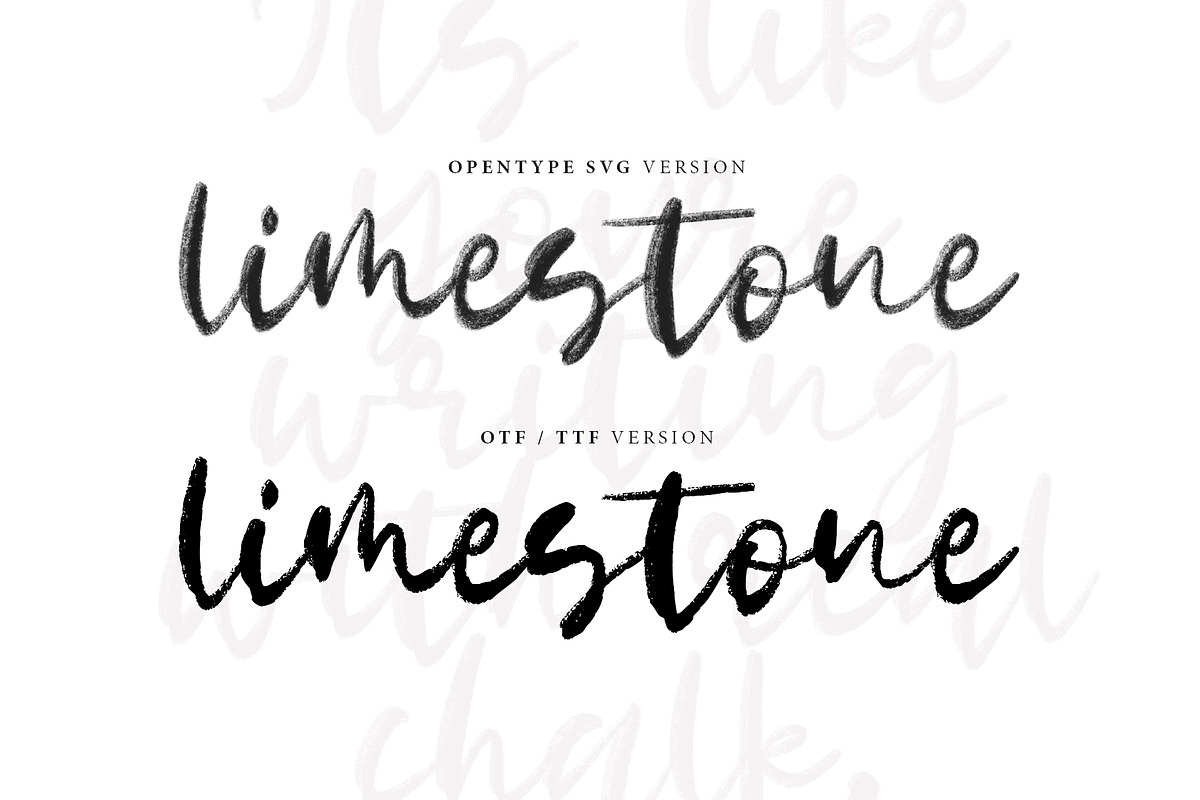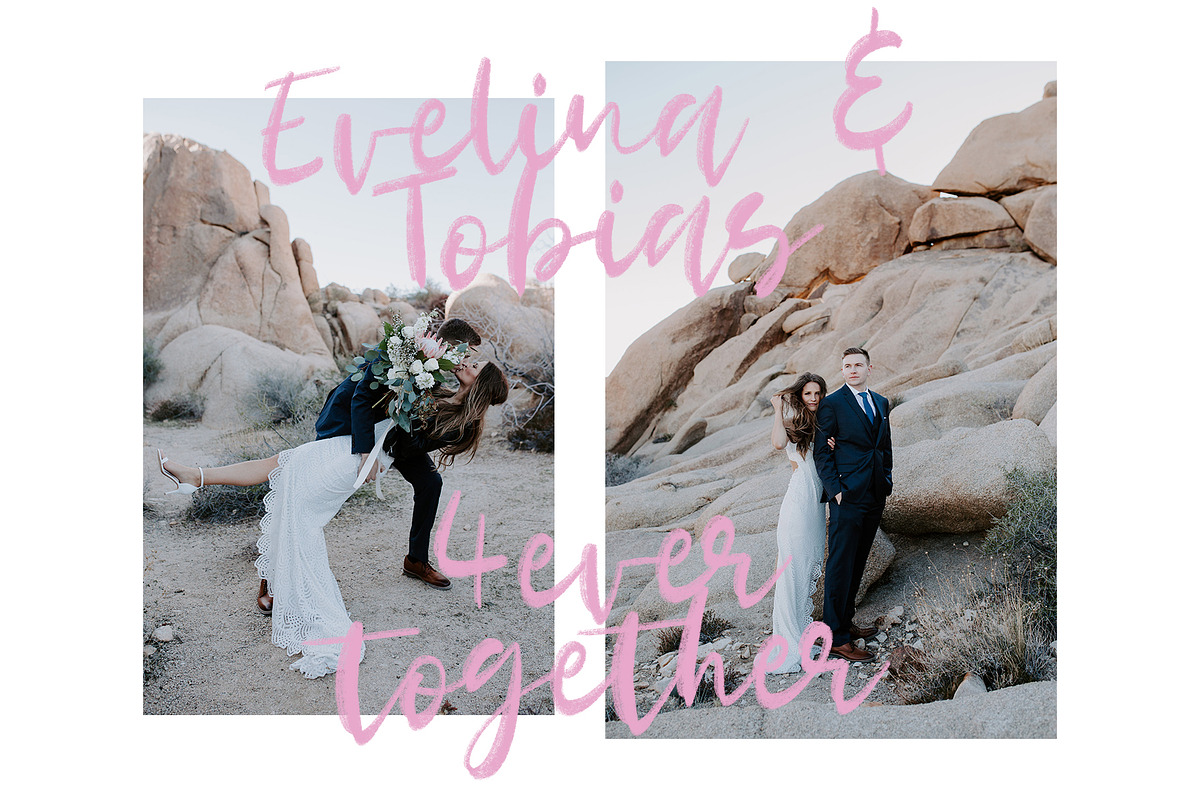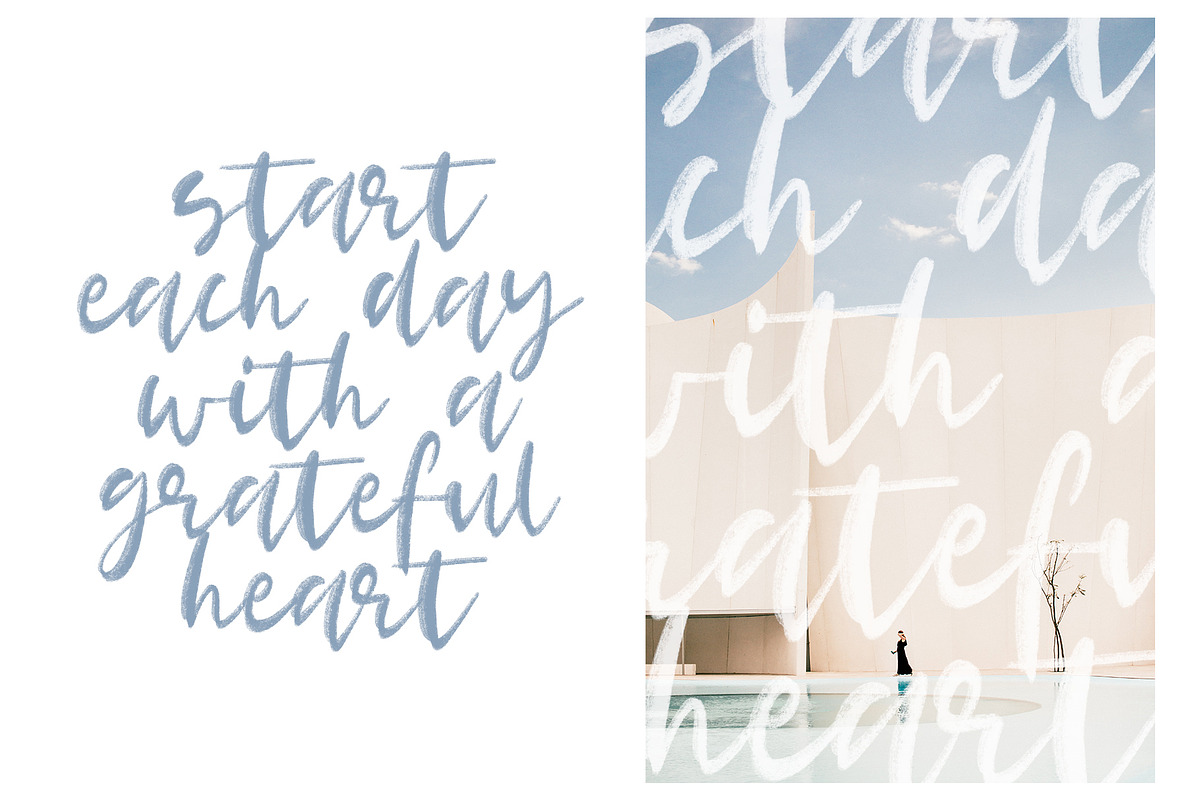
Limestone SVG font
Write like you write with chalk! The font was carefully drawn in chalk and transferred to the digital version to create beautiful typographical designs.
Limestone SVG Font are made by converting hand painted chalk lettering , unchanged, including all its transparency and high resolution detail - into an actual font - as you type your letters out, it looks like you have just hand painted them.
Limestone SVG font by supfonts fits naturally into Branding, posters, packaging, typography.